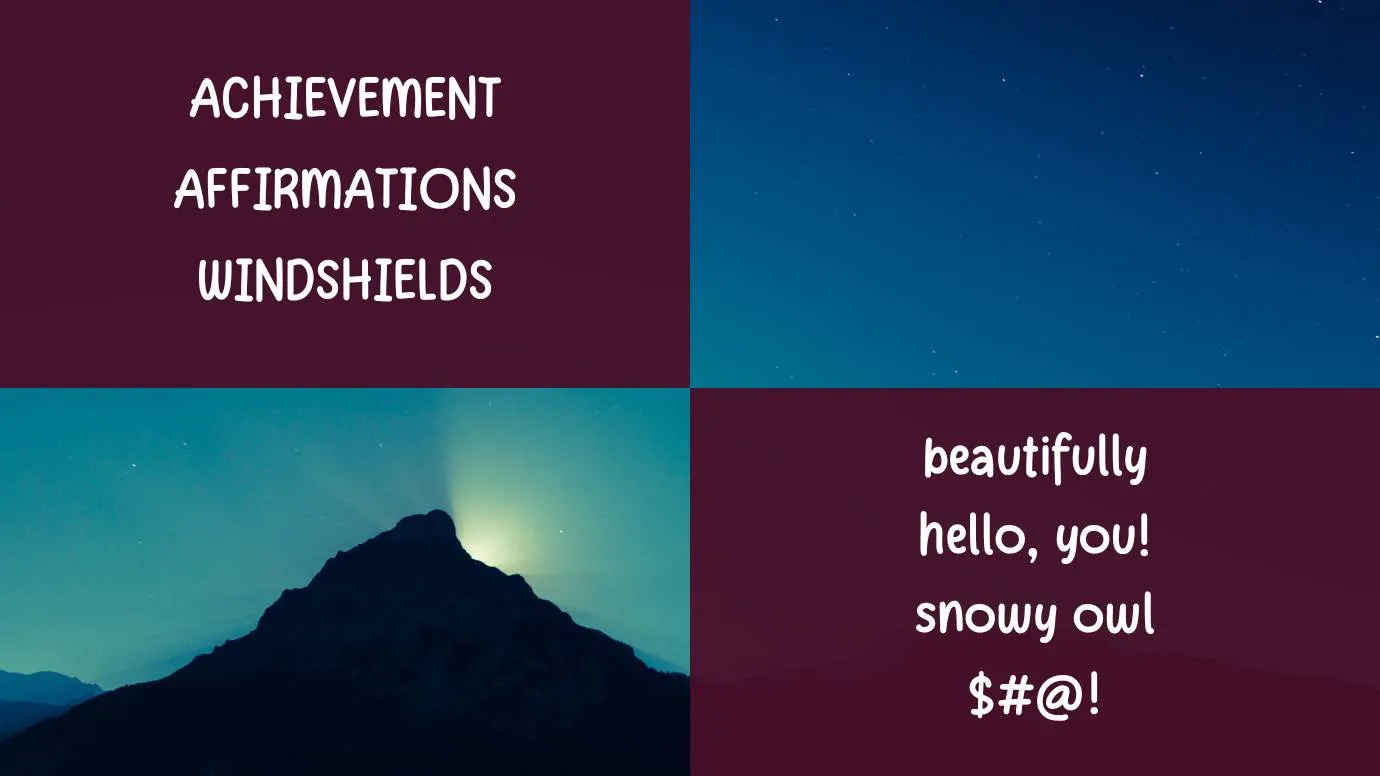
Are you interested in a lovely and stylish typeface, Featly Note Font is a new comic texture. It is a popular choice for comics, websites, and other publications that require a touch of playful and attractive look.
The typeface can combine with different styles and can be used for the creation of posters, classic cocktail recipe books, logos, posters, letterheads, signatures, magazine layouts, invitations, headers, and many more.
This typeface is stunning, outstanding, and quite identical to leven font with a comic design with straight lines and simple shapes. The letters have a horizontal stress, which gives it a sturdy and stable appearance.
Designer of Featly Note Font
The designer of the beautiful typeface is Niskala Huruf. She is known for her creativity and versatility.
Featly Note Font Family Includes
The texture style comes in regular and bold. It comes with a combination of various characteristics including small and capital letters, numbers, symbols, punctuation, and different language support.
Featly Note Font Details
| Name | Featly Font |
| Style | Comic |
| Designer | Niskala Huruf |
Why is the Featly font so popular?
The typeface is a popular choice. It is a popular choice for comics, websites, and other publications that require a touch of playful and whimsical look.
Where can I use the Featly font?
The typeface can be used for the creation of posters, classic cocktail recipe books, logos, posters, letterheads, signatures, magazine layouts, invitations, headers, and many more.